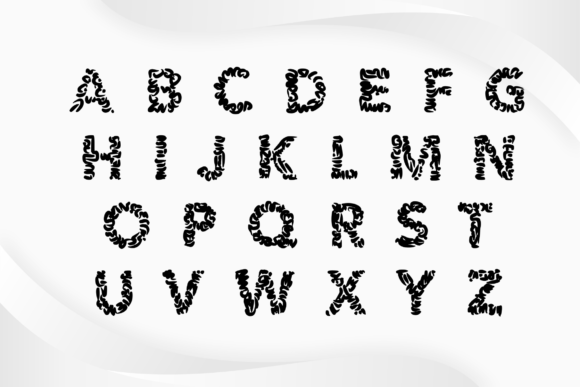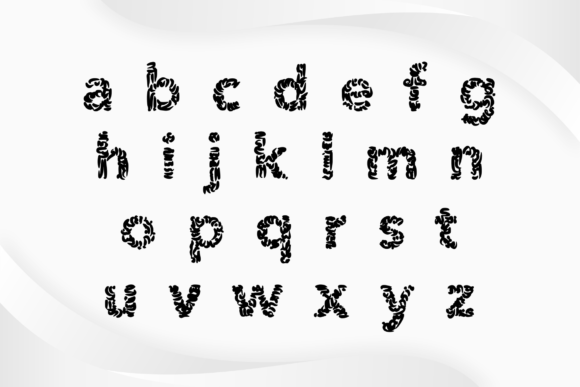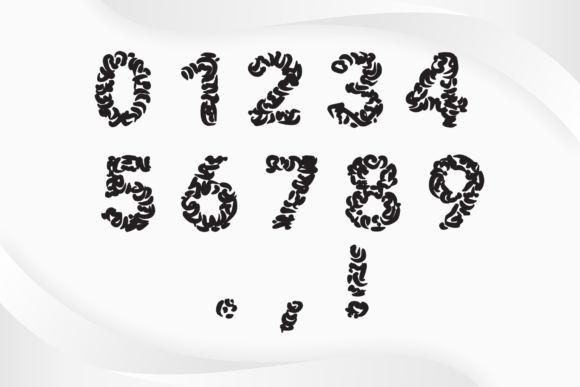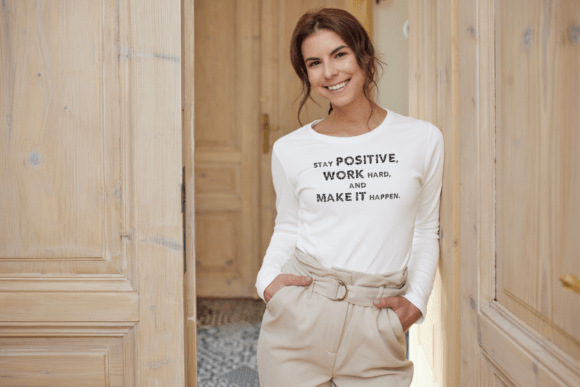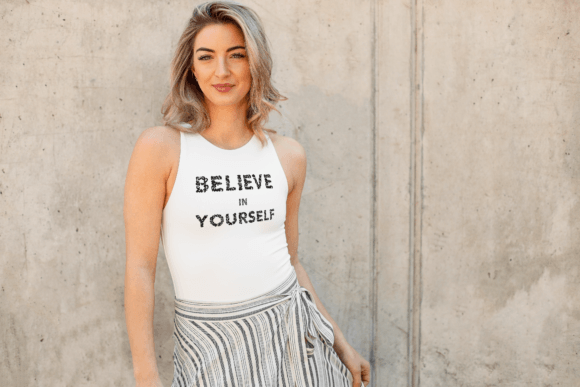
Introduction to Scratchy Font
Do you ever find yourself rummaging through your font library, searching for that perfect combination of style and uniqueness to elevate your design? I know I do. One moment that stands out in my mind was when I stumbled upon the perfect font for a quirky quote on a t-shirt design. It was love at first sight, and I knew I had to share it with fellow designers. Today, I want to introduce you to the amazing Scratchy Font – a hand-drawn masterpiece that will breathe life into your creative projects.
As a designer, you know how valuable a high-quality font can be to your work. Whether you’re working on a free download project or a commercial design, having the right font can make all the difference. And that’s exactly what the Scratchy Font offers – a unique, hand-crafted design that’s perfect for concept wording, quotes, and more. With its transparent background, this font is a versatile design resource that will elevate your work to new heights.
Key Features of Scratchy Font
- High-quality, unique design suitable for creative projects
Honest Review: Scratchy Font
I recently had the chance to work with Scratchy Font, a free download that promised to bring a unique touch to my creative project. Overall, I was quite impressed with its high quality and versatility.
What works well: ✨ The scratchy texture adds a nice depth to any design, and the transparent background makes it easy to customize and layer with other elements. I also appreciate the wide range of font styles and sizes available.
- Scratchy Font offers a great balance of modern and vintage vibes, making it perfect for a variety of design projects.
- The font is highly customizable, allowing me to adjust the texture and color to suit my needs.
- As a free download, I was pleasantly surprised by the level of detail and care that went into creating this design resource.
Limitations: ⚠️ While Scratchy Font is generally easy to work with, I did find that the texture can sometimes be overwhelming, especially in large quantities. Additionally, the font may not be suitable for projects that require a clean, minimalist aesthetic.
Overall, I’m quite impressed with Scratchy Font and would recommend it to anyone looking to add a unique touch to their creative project. With its high quality and versatility, it’s definitely a valuable design resource to have in your toolkit.
The Scratchy Font is a versatile design resource that can be used in a variety of creative projects, such as
– Brochures and flyers for events or promotions
– Social media graphics and posts
– Business cards and stationery
– Digital invitations and party decor